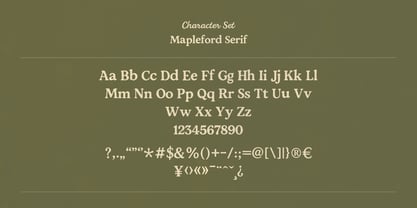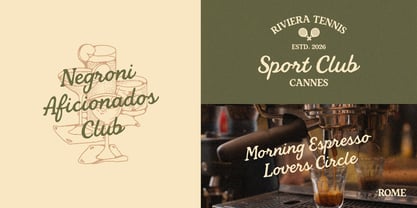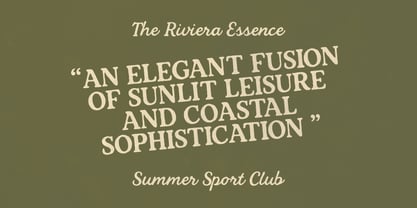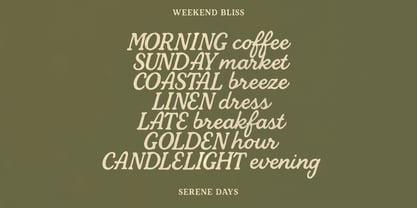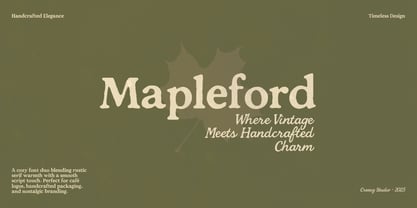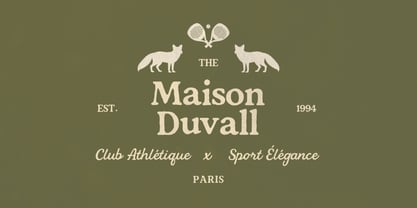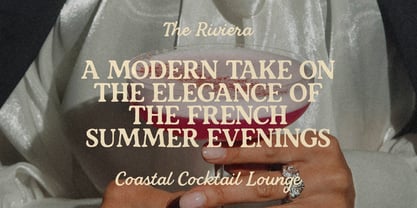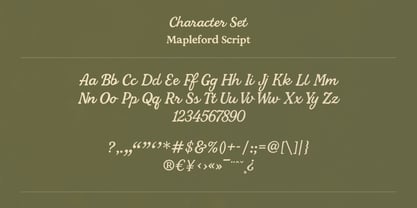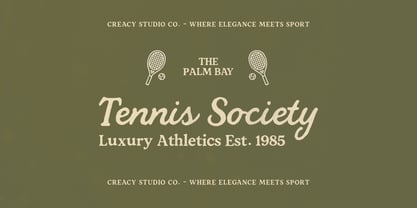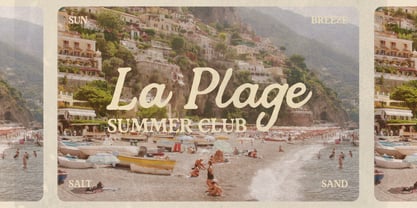
Mapleford
by Creacy Studio
The Mapleford Font Family was designed by Yosep Hendri Swandi and published by Creacy Studio. Mapleford contains 2 styles and family package options. More about this family
Mapleford is a handcrafted font duo that combines rustic charm with timeless versatility. Featuring a bold serif and a friendly script, it captures the spirit of artisan craftsmanship and warm nostalgia. Each stroke feels naturally imperfect—evoking the look of hand-lettered signage found on cozy cafés, vintage shops, and countryside markets. Perfect for logos, packaging, editorial titles, and lifestyle branding, Mapleford brings a human touch to modern design projects. Its complementary pair allows effortless combination: use the serif for confident headlines and the script for elegant accents or signatures. Designed with attention to detail and organic rhythm, Mapleford adds personality without overpowering your message. A versatile choice for designers seeking authenticity, texture, and warmth in their typography.
Designers: Yosep Hendri Swandi
Foundry: Creacy Studio
Creacy Studio is a creative-type foundry based in Alamendah, Kabupaten Bandung. Creacy Studio specialises in developing aesthetically refined script fonts and delivers high-quality typefaces that combine elegance, functionality, and artistic expression. With a meticulous approach to typography, our team focuses on crafting fonts that enhance branding, digital design, and visual storytelling. Each typeface is designed with attention to detail, ensuring versatility and readability across various applications, from print to digital platforms. At Creacy Studio, we believe in the power of typography to transform ideas into compelling visual narratives. Our commitment to innovation and craftsmanship allows us to provide designers, brands, and creative professionals with unique and timeless font solutions. Through continuous exploration and refinement, we strive to push the boundaries of type design, offering fonts that inspire creativity and elevate design aesthetics.